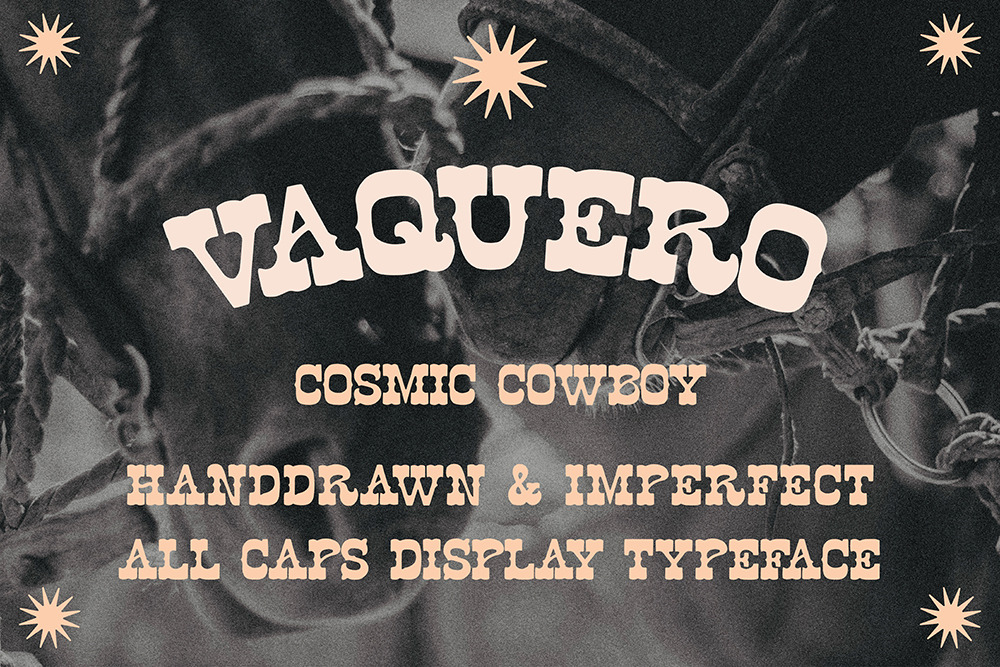
Vaquero • Western handdrawn typeface
Vaquero is a hand drawn western-inspired display typeface with a slightly psychedelic bent.
It contains an all-caps, hand drawn, psych-western-inspired set of letters – perfect for adding a hand drawn perfectly imperfect touch to your logo, branding and merch designs.
Featuring bold curvy display caps, a full set of numbers and punctuation, as well as some sparkly alternates — it’s perfect for all your cosmic cowboy design endeavours.